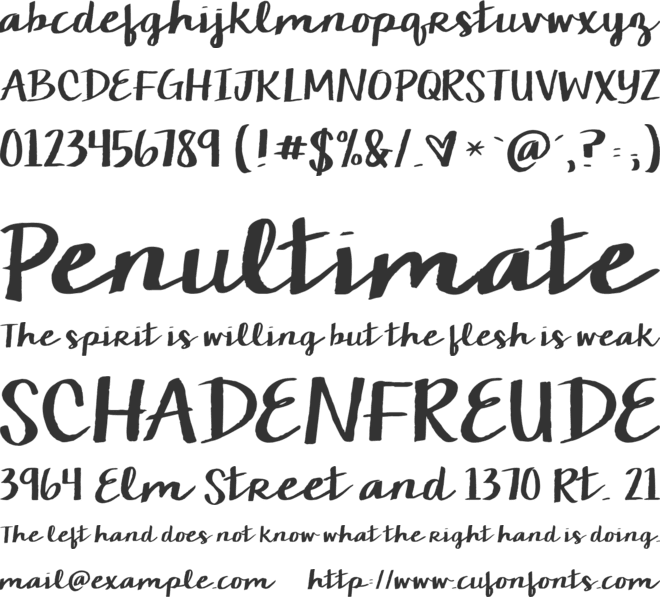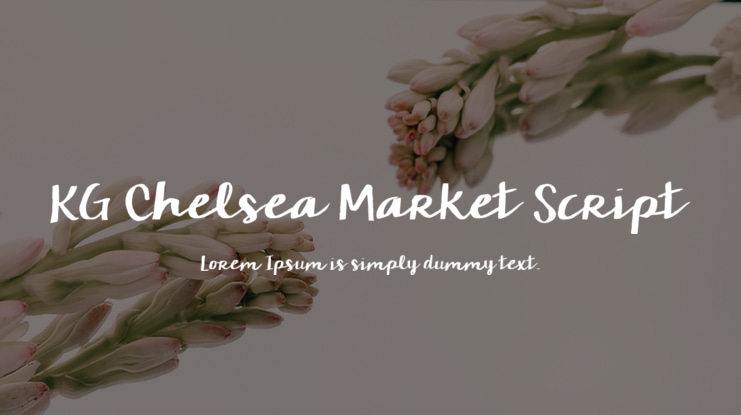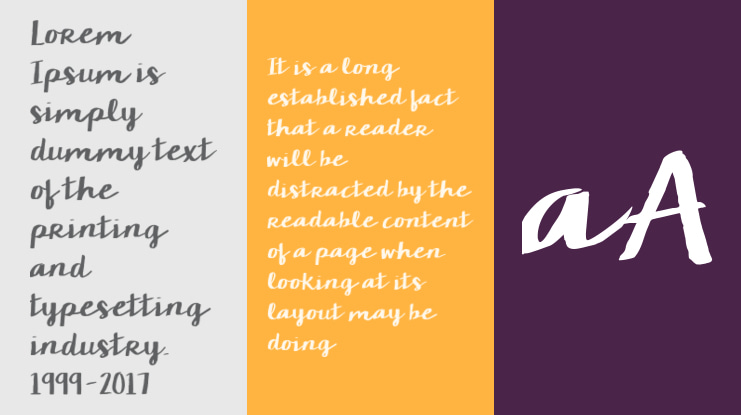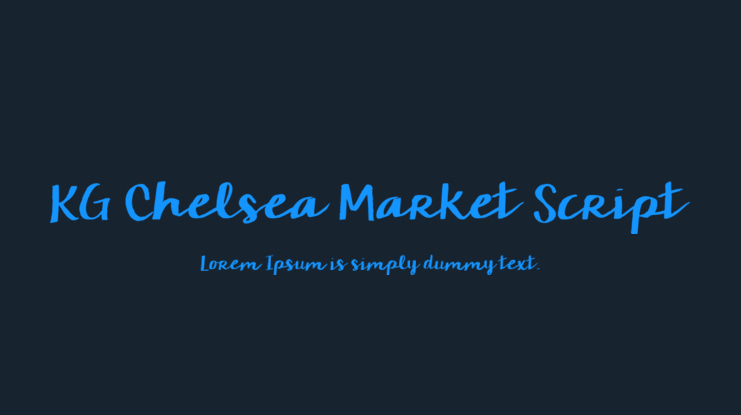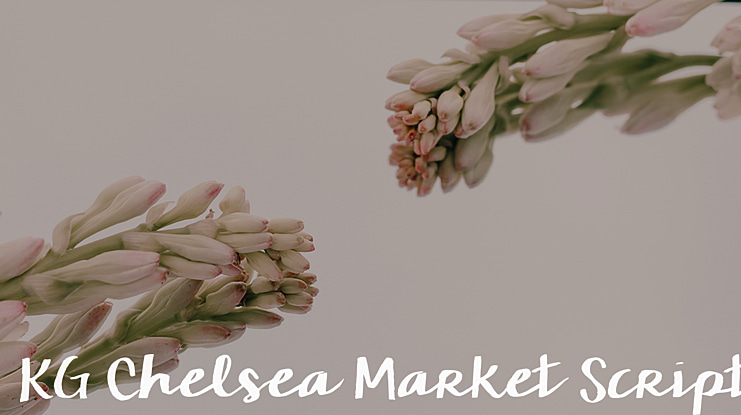
KG Chelsea Market Script Font
Kimberly Geswein
A whimsical, handlettered brushstroke watercolor font. Please pay for commercial use (http://www.kimberlygeswein.com/2015/01/27/new-kg-chelsea-market-script/).